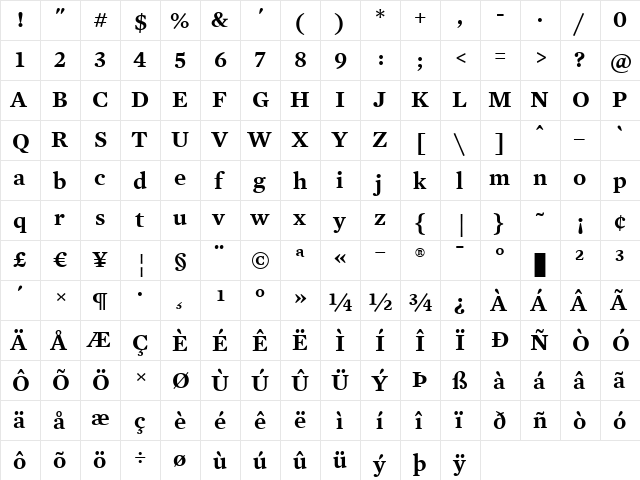
Mercury Text G3 SemiBold
Design Context for Mercury Text G3 Typeface
Mercury Text G3 is a composed and adaptable typeface that performs quietly and consistently across a wide range of design contexts. The heavy weight commands attention and anchors typographic hierarchies.